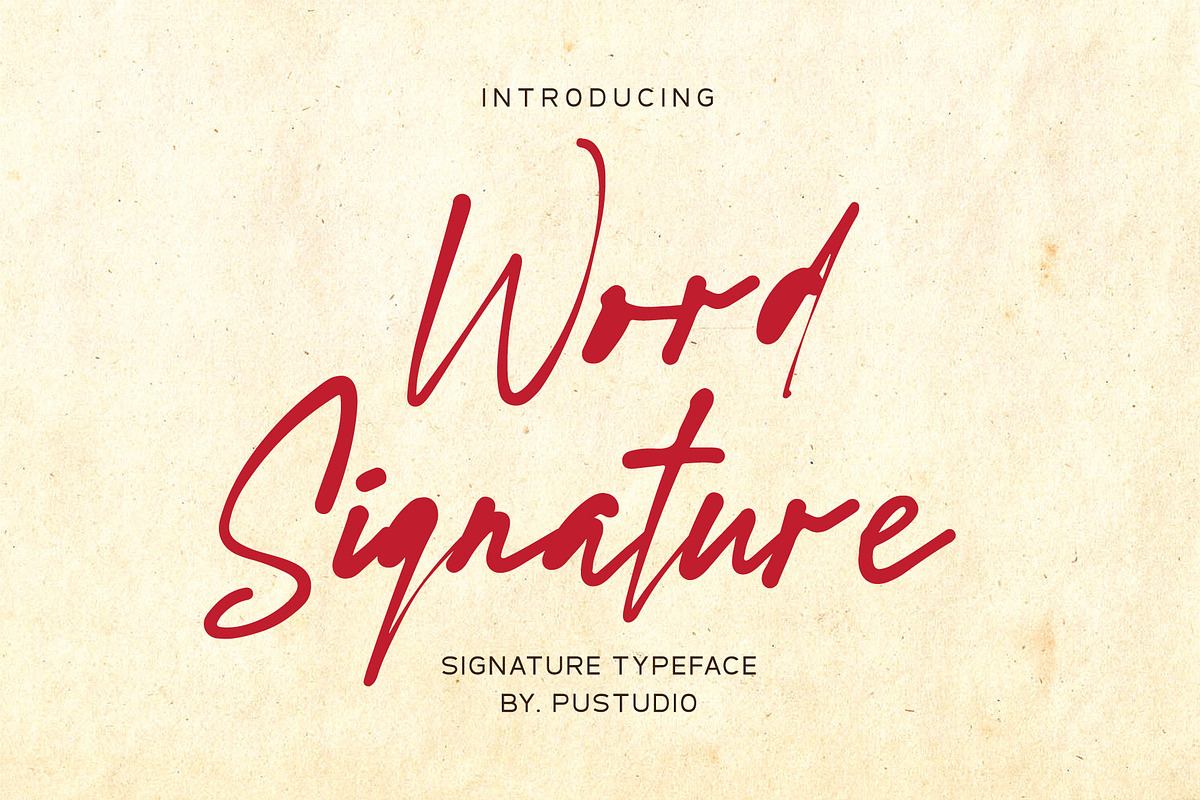
The Word Signature Font Free Download is a beautifully crafted script font that adds a personal, elegant touch to any design. With its flowing, cursive strokes, this font captures the essence of a handwritten signature, making it perfect for projects that require a sophisticated, yet authentic style. Whether you're designing wedding invitations, logos, or social media posts, Word Signature Font brings a unique flair to your creative work.
The Word Signature Font Free Download offers a smooth, flowing design that mimics a real signature, giving your projects a high-end, personalized look. Its elegant curves and refined letterforms make it ideal for a range of uses, from branding and editorial work to invitations and greeting cards.
If you’re looking for a script font that is both stylish and easy to read, Word Signature Font is an excellent choice. Its clean and flowing lines ensure legibility while maintaining a sophisticated, signature-style appearance. This makes it the perfect font for high-end branding, event materials, and social media content.